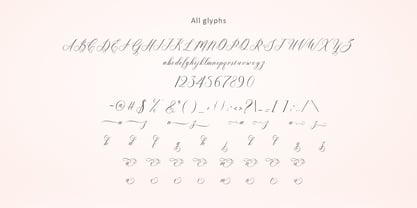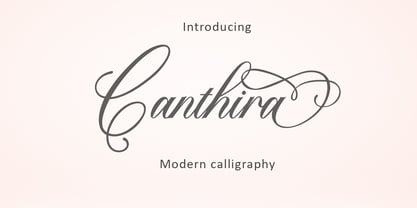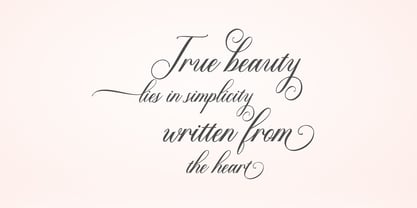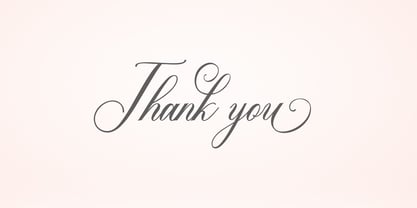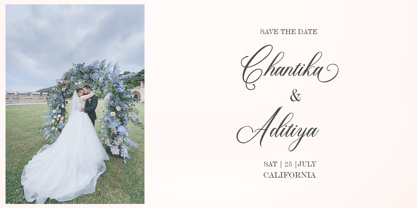
Chanthira
by Amarlettering
The Chanthira Font Family was designed by Amar Lettering and published by Amarlettering. Chanthira contains 1 styles. More about this family
Canthira is a modern calligraphy script font that blends elegance with expressive flowing strokes. Designed with graceful curves and stylish swashes, this font brings a luxurious and romantic feel to any design. Each letter is carefully crafted to create smooth connections and beautiful rhythm, making your text look natural yet refined. Perfect for wedding invitations, branding, logos, social media posts, quotes, packaging, and editorial designs, Canthira adds a sophisticated handwritten touch while remaining highly readable. Whether you’re creating feminine designs or premium visual identities, Canthira delivers charm and timeless beauty. Let Canthira elevate your typography with its modern calligraphy soul and elegant personality.
Chanthira